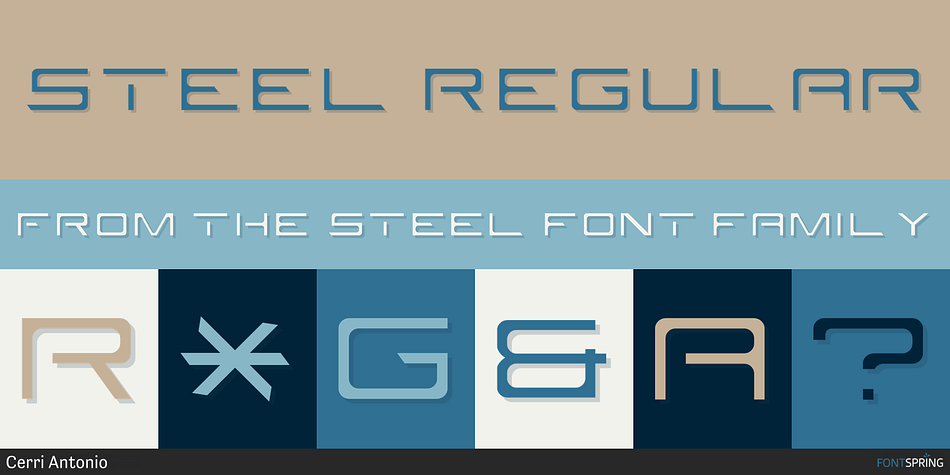
STEEL REGULAR
Steel is a display sans font family published by Artyway.
STEEL regular, outline and bold, is an 3 font system that can be layered in different ways to create a infinite title effects used commonly in poster and 3D logo design.
Powerful design of the Steel Race font will speed up your pulse!
Wide with sharp serifs and a verified angle of inclination radiate confidence and respect.
The "Steel" will save your time and nerves when creating the dynamic compositions, like sports events and promotions or logos.